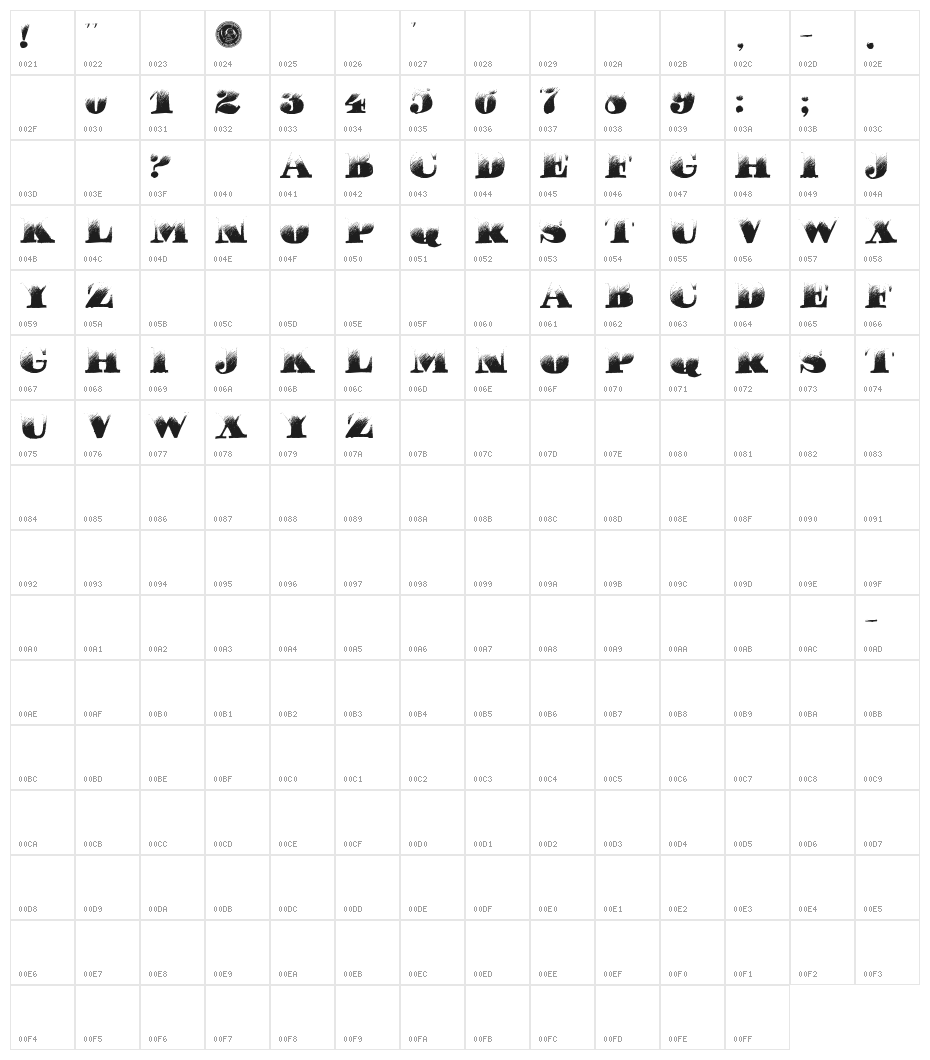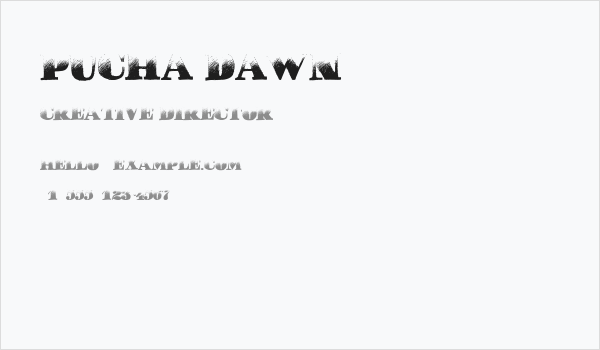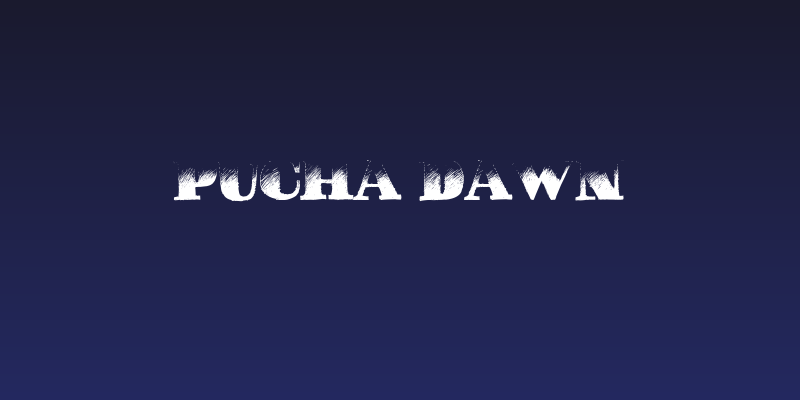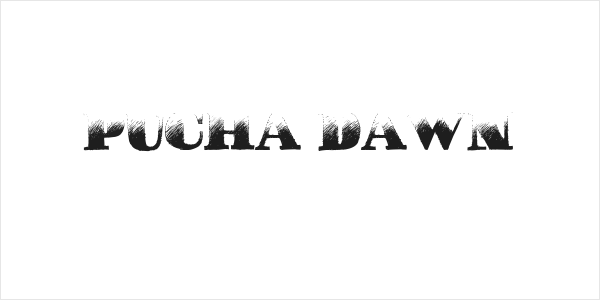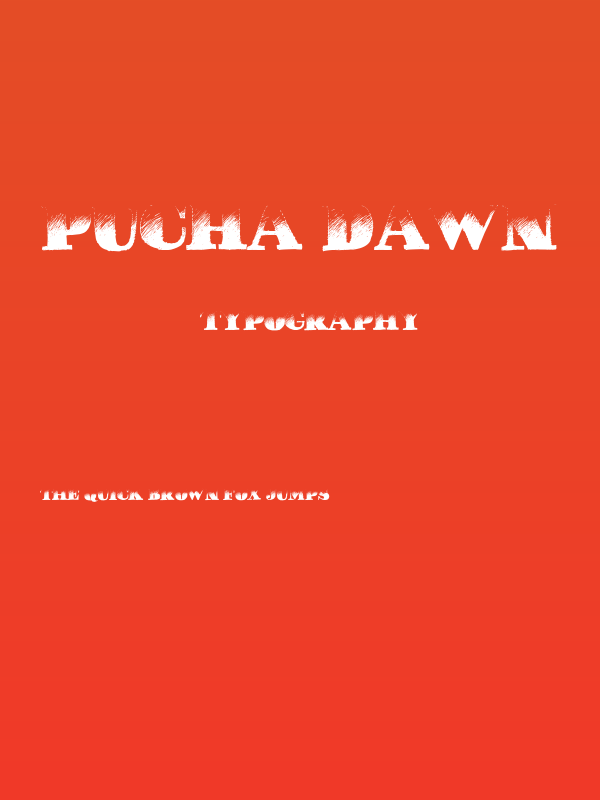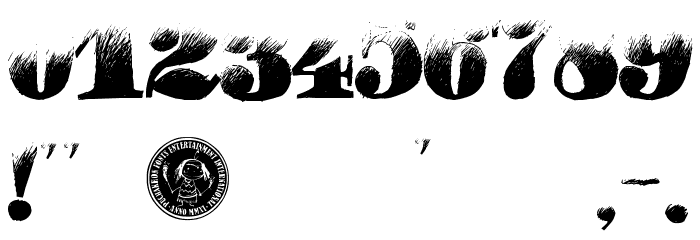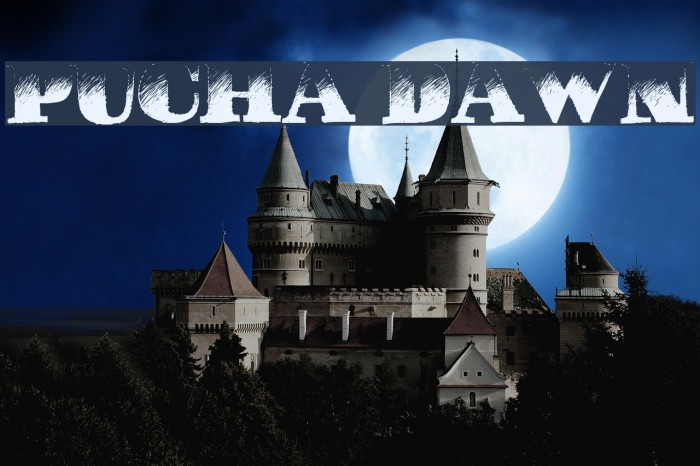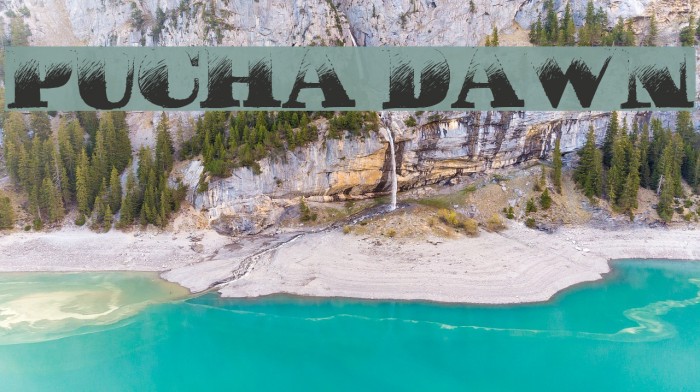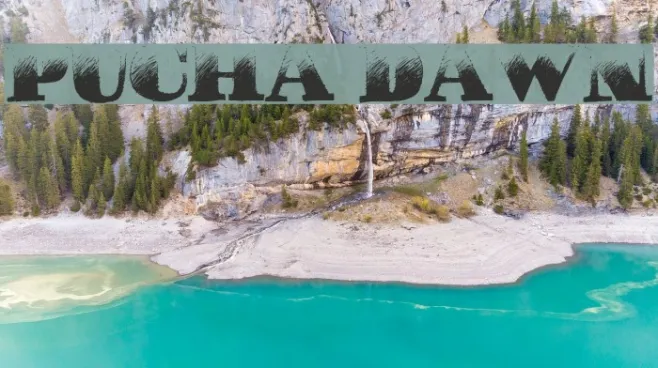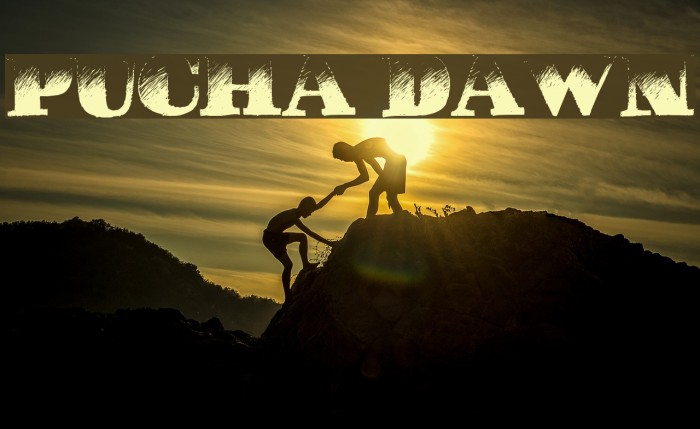
Pucha DAWN Font
Pucha DAWN Description
This font features a bold and dramatic style with a distressed texture that gives it a rugged, vintage appearance. The characters are robust and impactful, with a strong presence that commands attention. The uppercase and lowercase letters maintain a consistent weight, while the numbers and special characters follow the same bold aesthetic. The distressed effect adds a unique character to each glyph, making it ideal for designs that require a touch of nostalgia or a gritty, worn look. This font is perfect for projects that aim to evoke a sense of history or authenticity.
| Proposed Projects | Ideal for vintage posters, branding, logos, and apparel designs that require a bold, historical touch. |